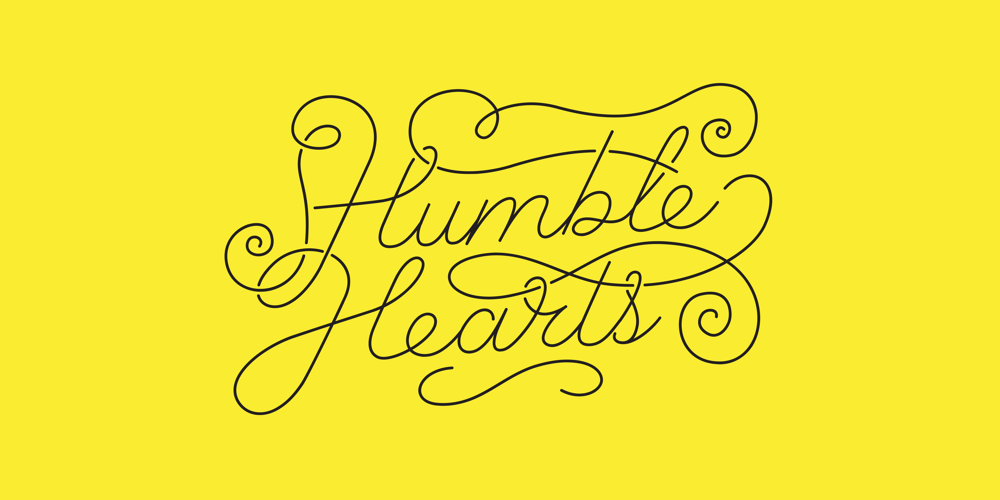
Humble Hearts Font Family was designed by Joanne Hewitt and published by Joanne Marie. Humble Hearts contains 1 styles and family package options. Humble Hearts is a mono script font designed to look handlettered and unique.With over 700 glyphs you will have lots of fun designing beautiful logos, t-shirts, wedding stationery, menus – the list is endless!Anyone can access the alternate glyphs via Font Book on a mac or Character Map in Windows to copy and paste into non designer software.Please take a look at all of the pictures to see this font at work.You can use the basic glyphs as a lovely script on it’s own or you can make your designs really fancy using the alternates and swashes. You can choose to have the breaks in the swashes (as shown) or solid swashes.In addition to the multilingual characters included in this font are the following styles and glyphs: Alternates Ligatures Swashes Ornaments & Premade words